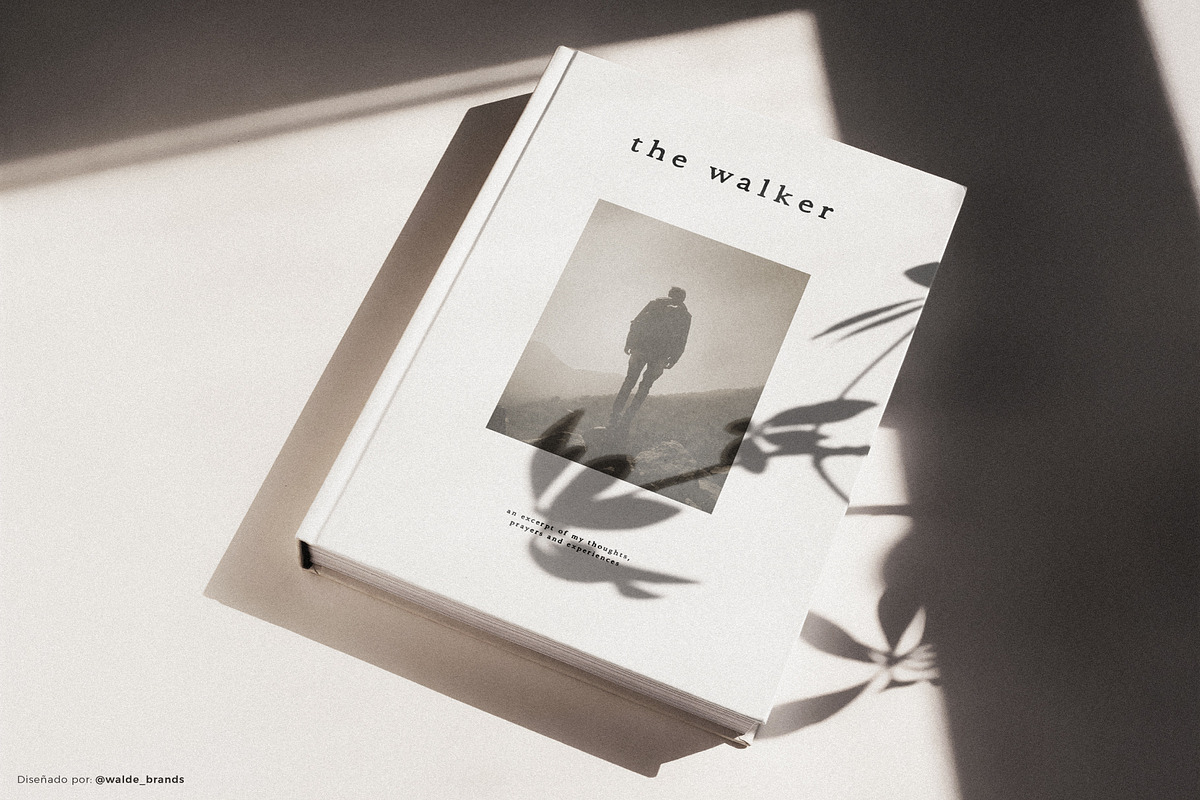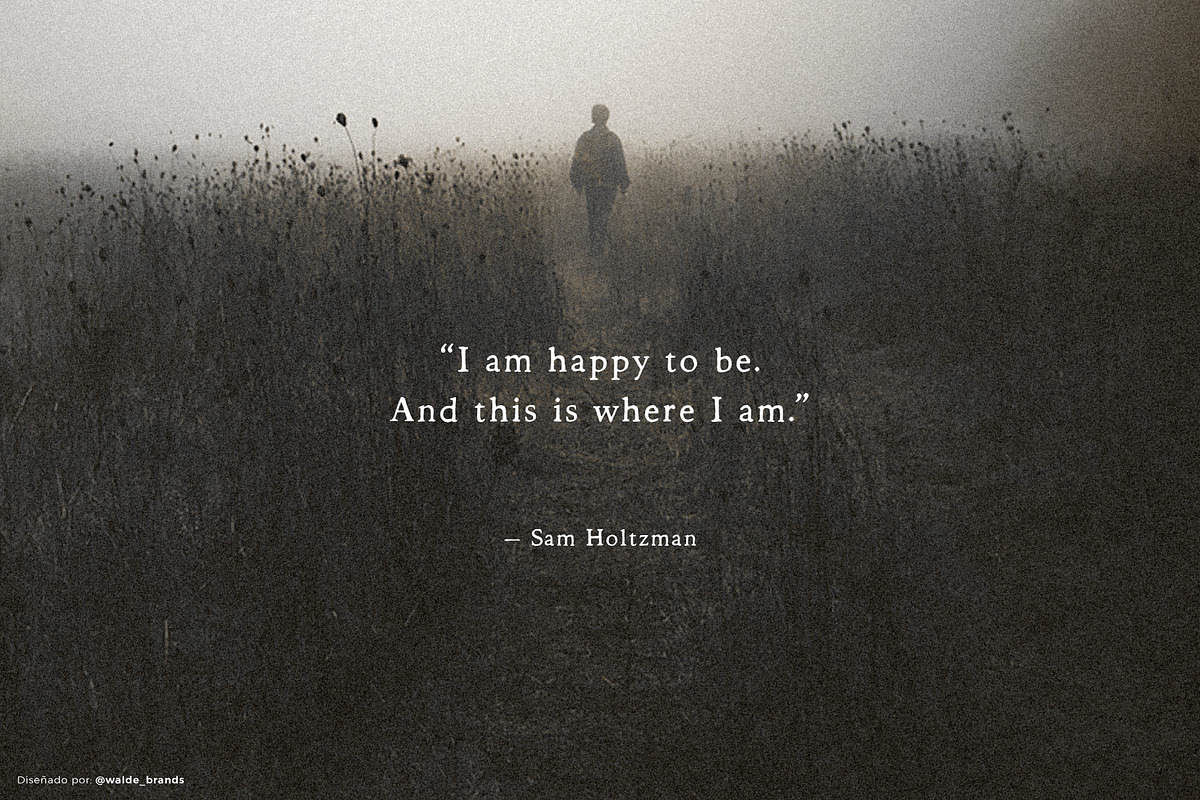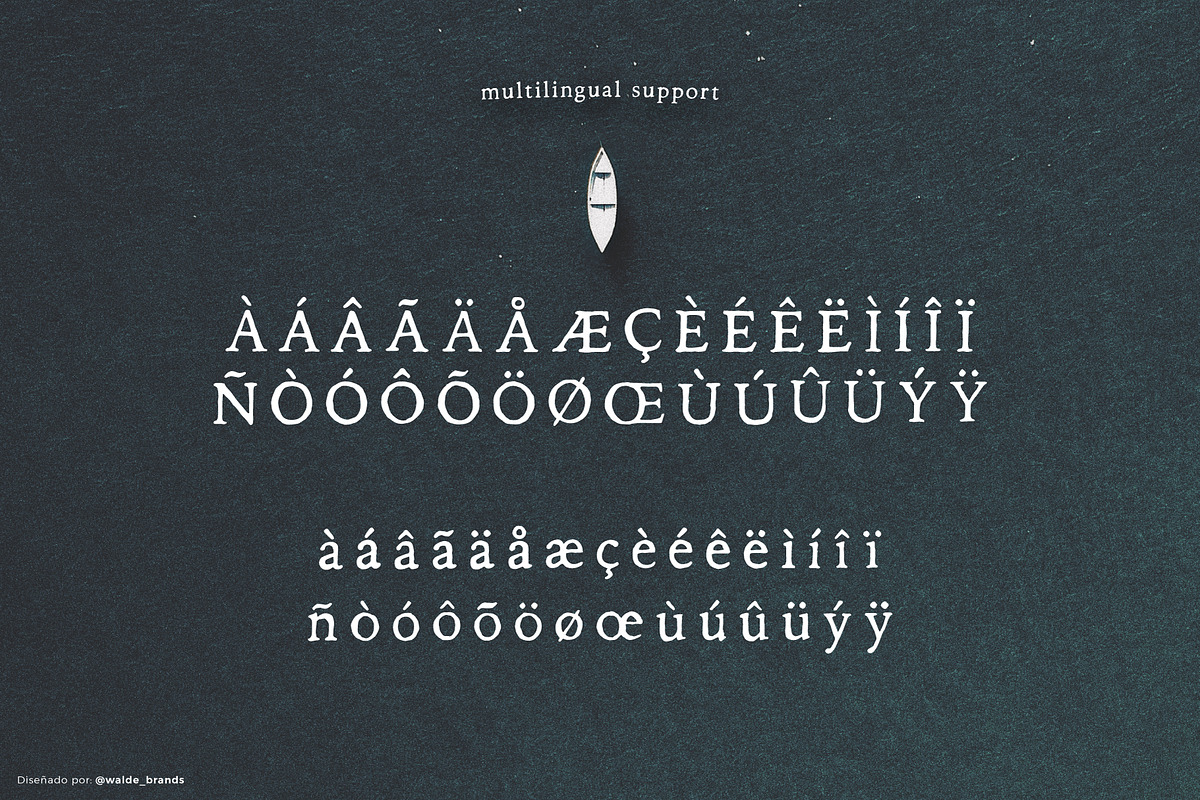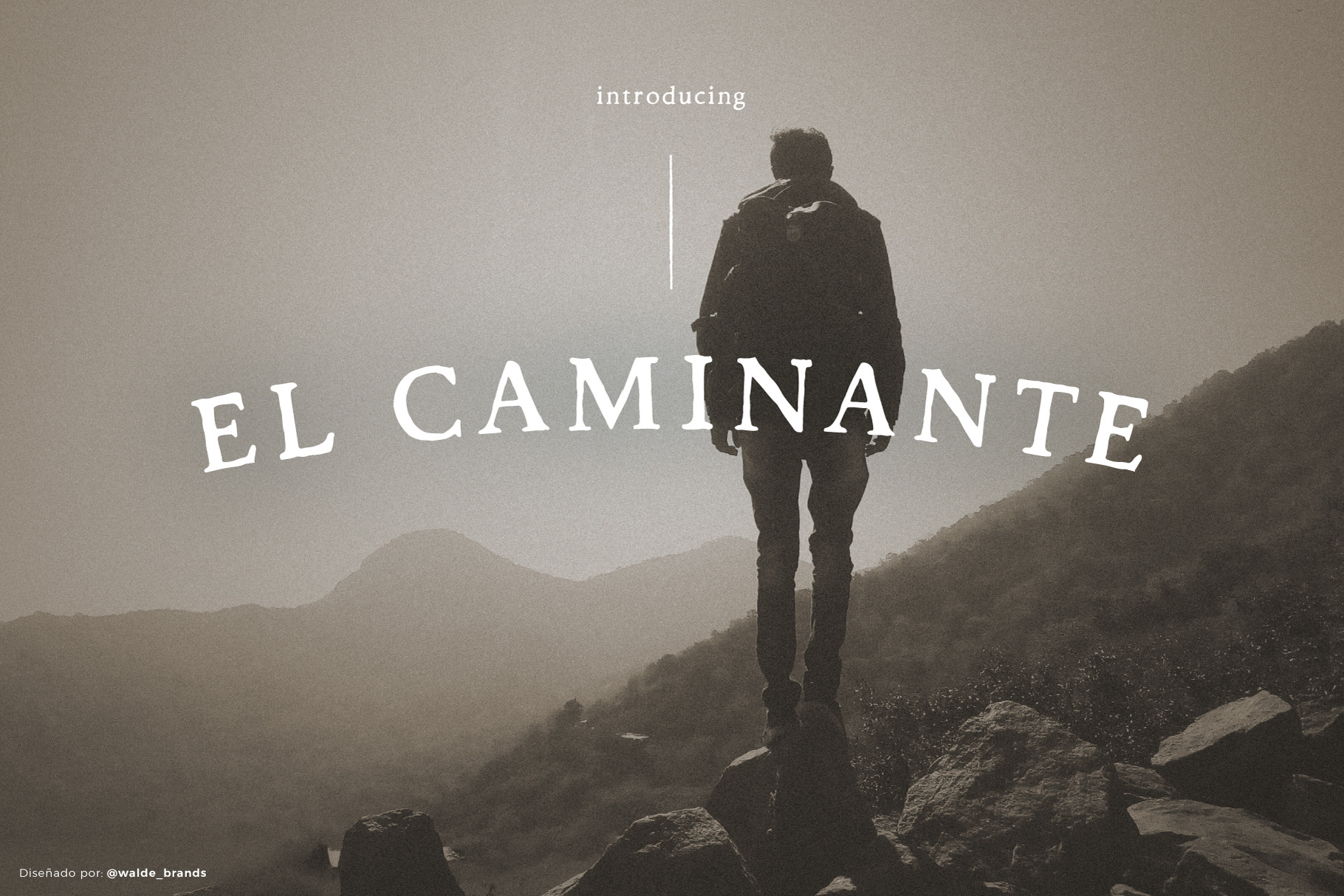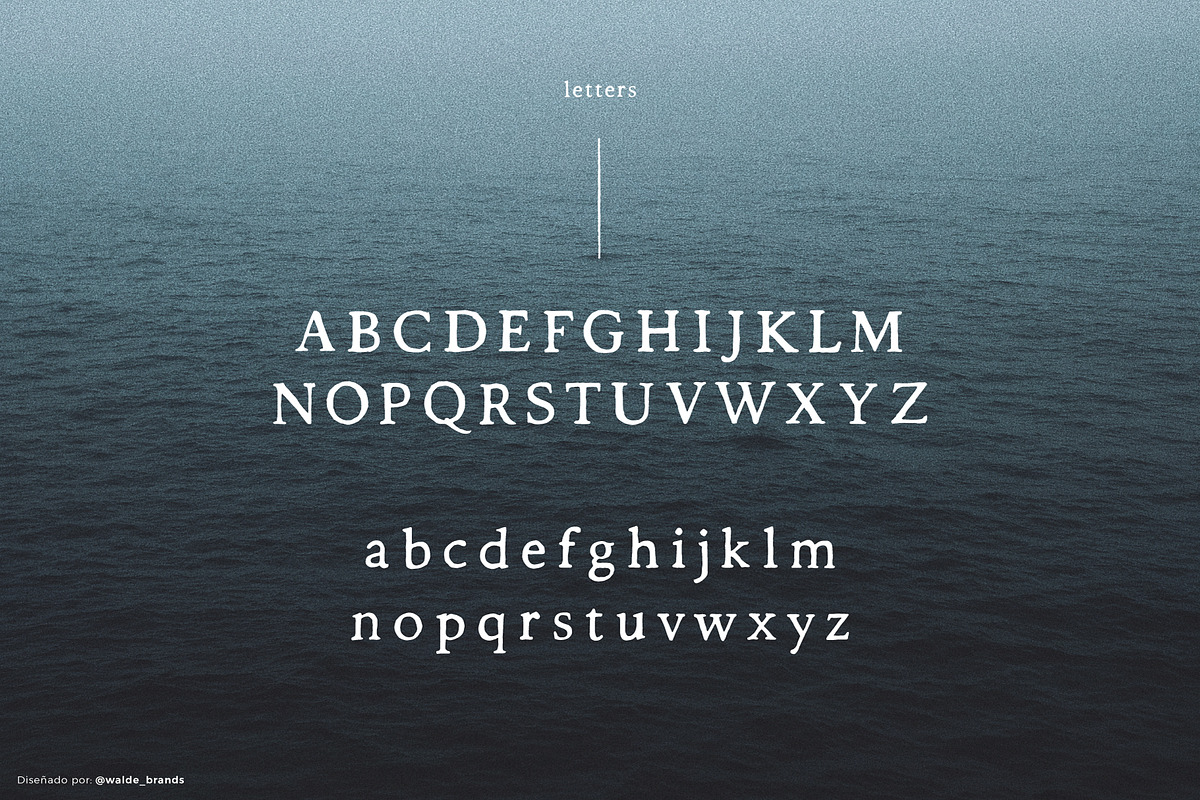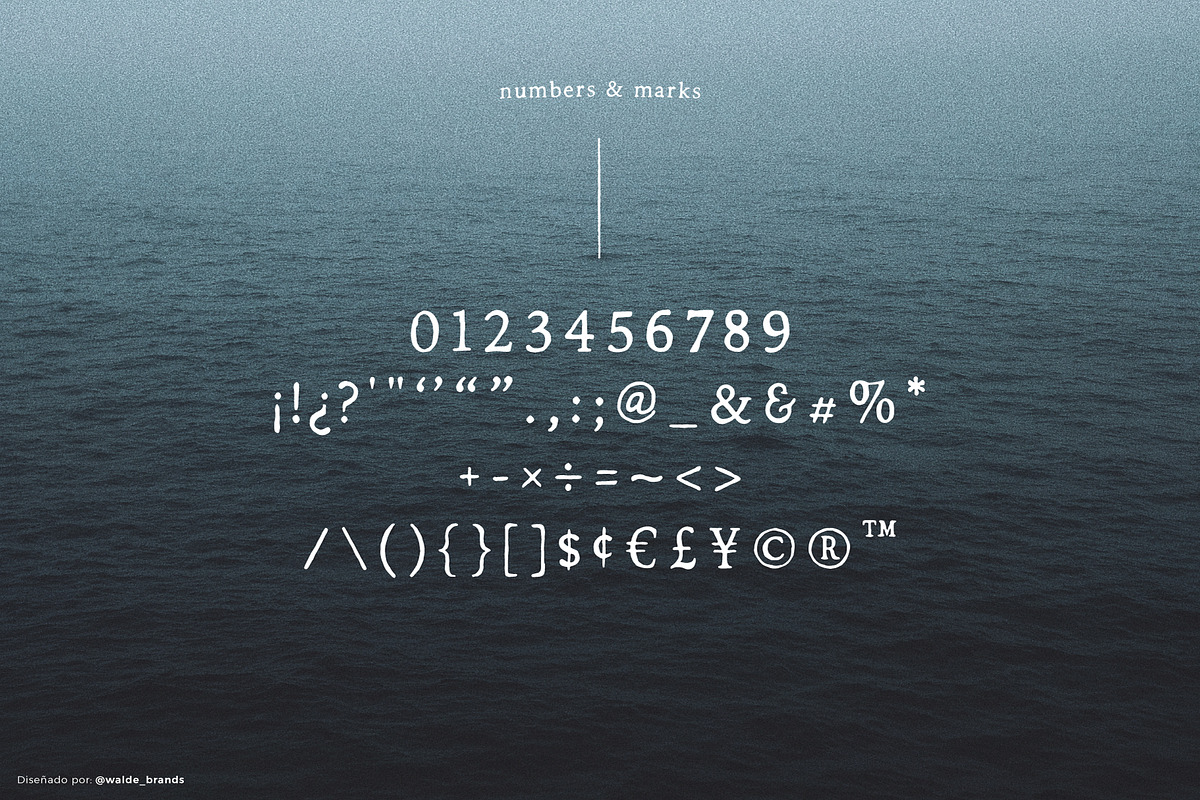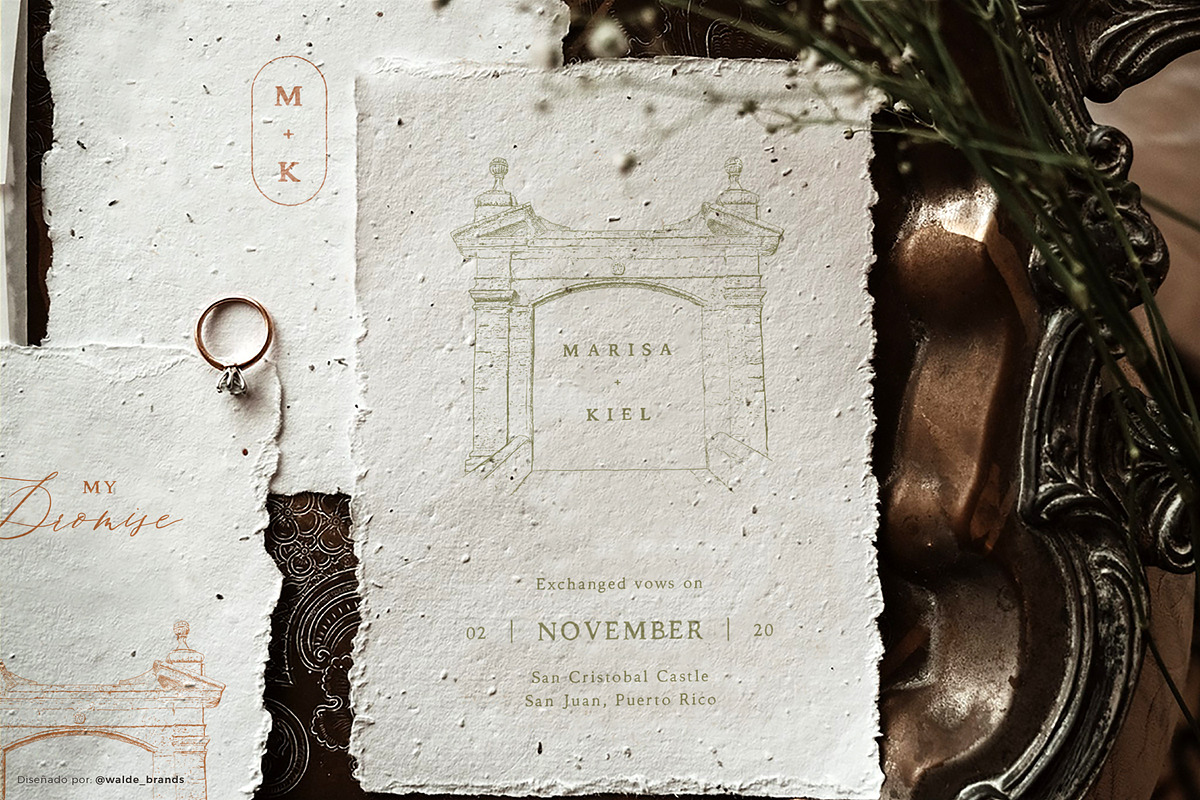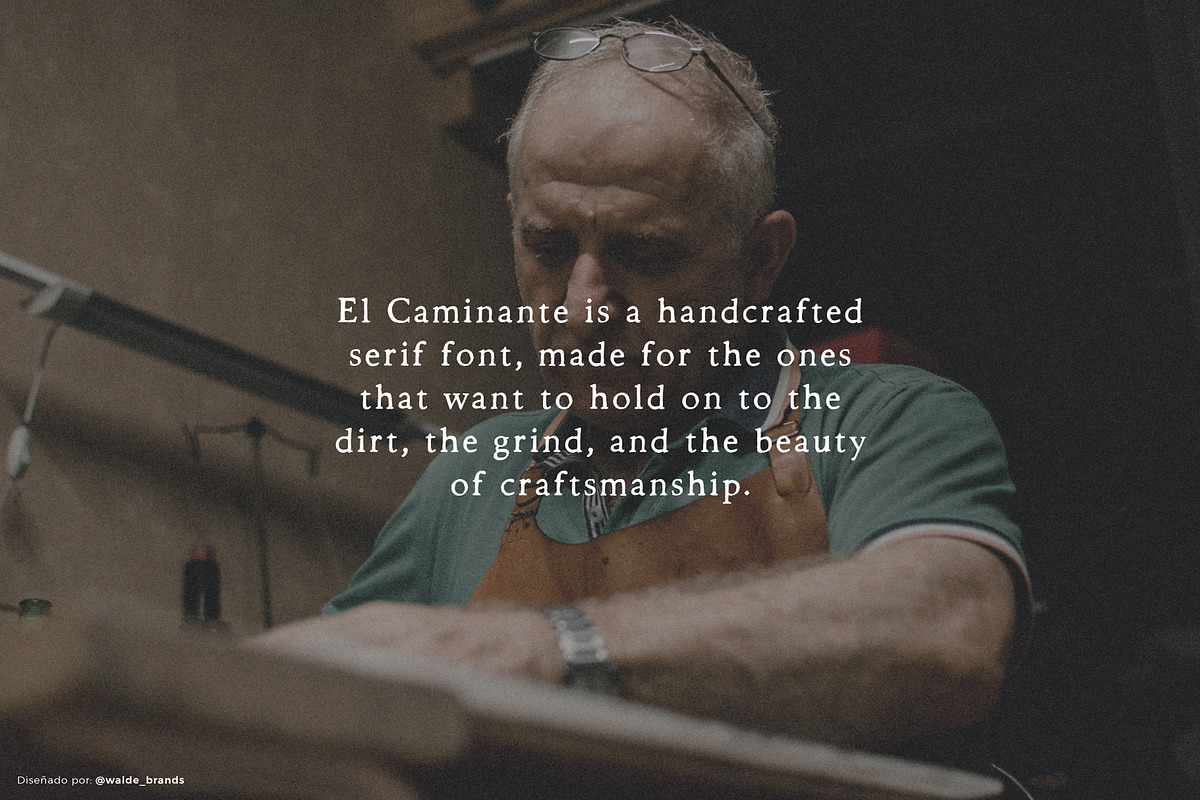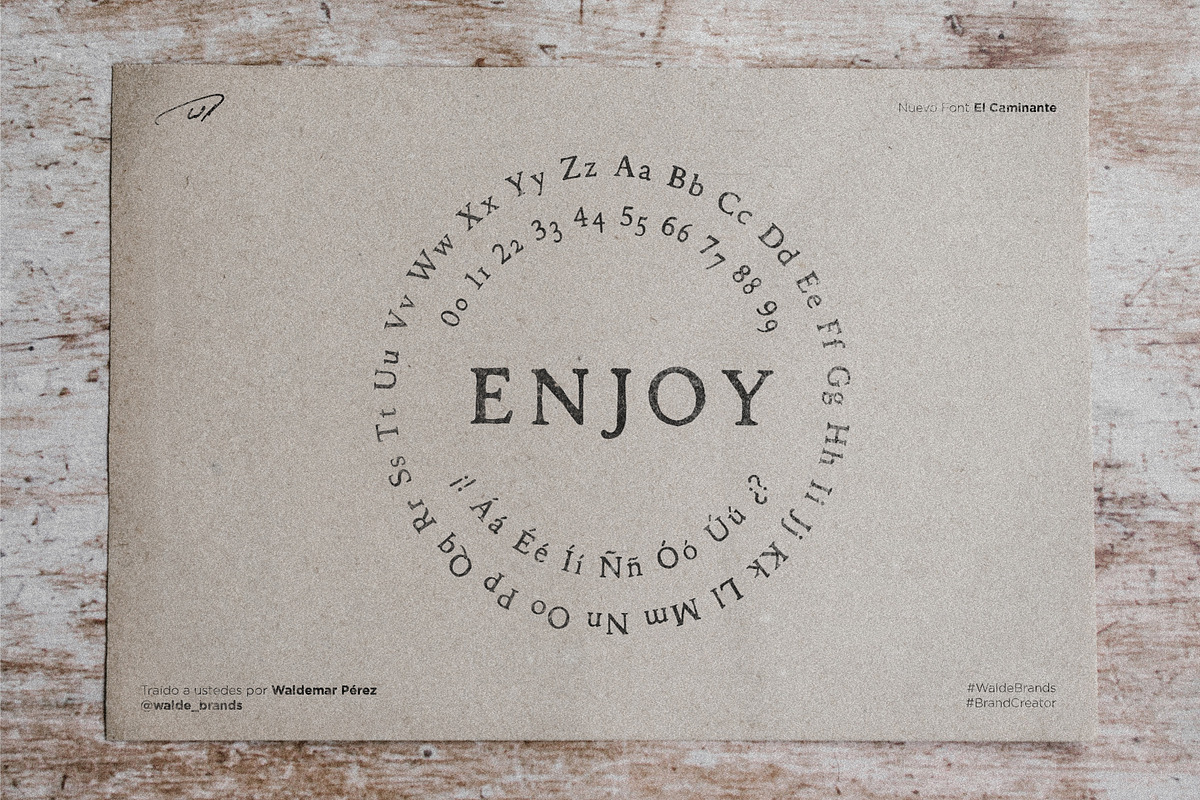
El Caminante Handmade Font
El Caminante - a handmade, rugged & elegant old style serif with beautiful contrast. Made for the ones that want to hold on to the dirt, the grind, and the beauty of craftsmanship. Perfectly suitable for creating elegant, bespoke, lifestyle designs such as logos, titles, book covers, and more. The font supports multilingual glyphs (each one was hand-drawn individually) and also number alternates.